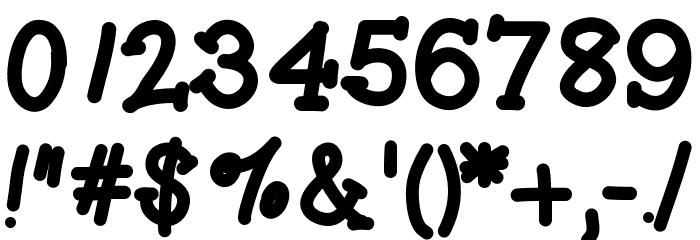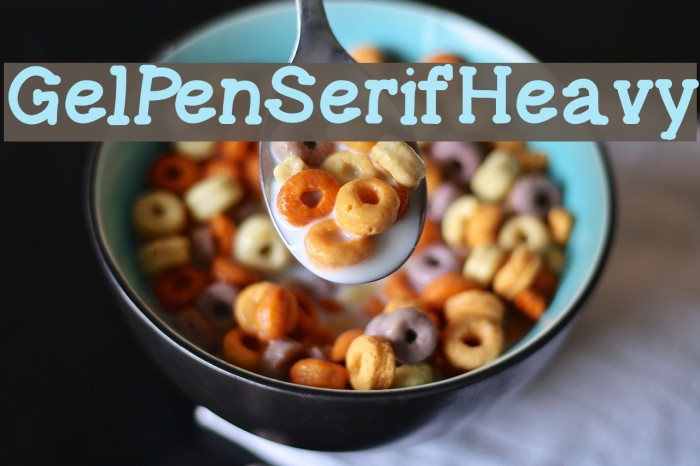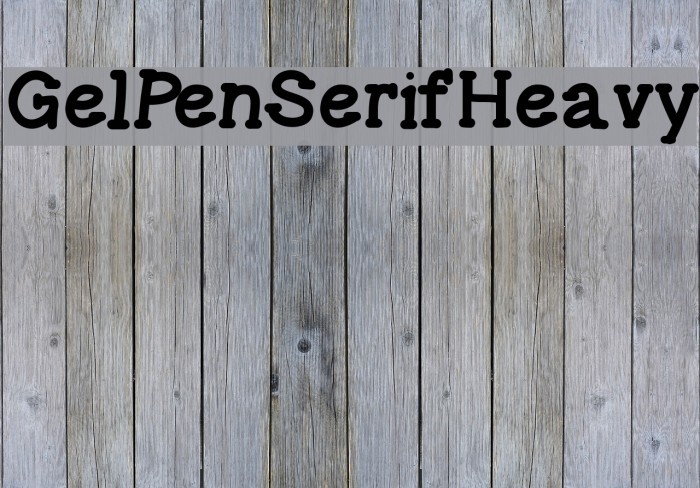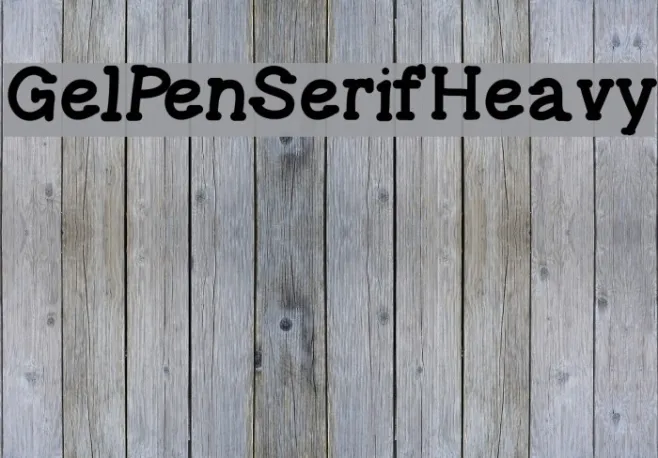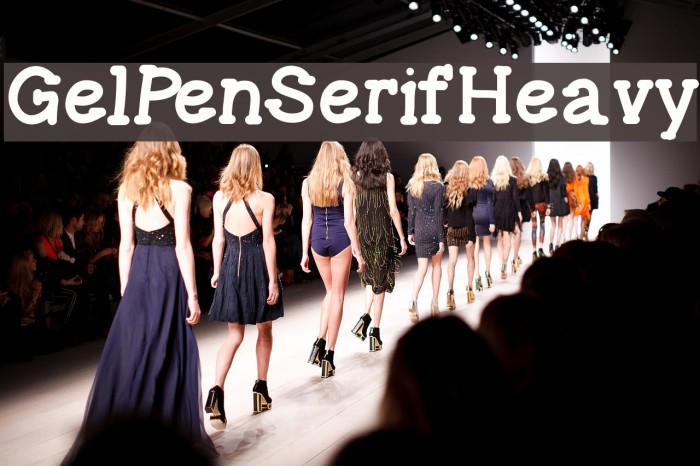
GelPenSerifHeavy Font
This font features a bold, playful style with rounded edges and a hand-drawn appearance. The characters are thick and heavy, giving a strong presence on the page. The uppercase and lowercase letters maintain a consistent weight, while the numbers and special characters are equally bold and expressive. The font has a casual, friendly feel, reminiscent of handwriting with a gel pen, making it approachable and easy to read. Its unique style is suitable for projects that require a touch of personality and creativity.
A bold, playful font with a hand-drawn, rounded style.
• Proposed Projects: Ideal for children's books, playful branding, greeting cards, and creative posters.
• Category: Decorative/Display
• Overall Style: Playful, Handwritten
• Use Case: Headlines, Logos, Posters